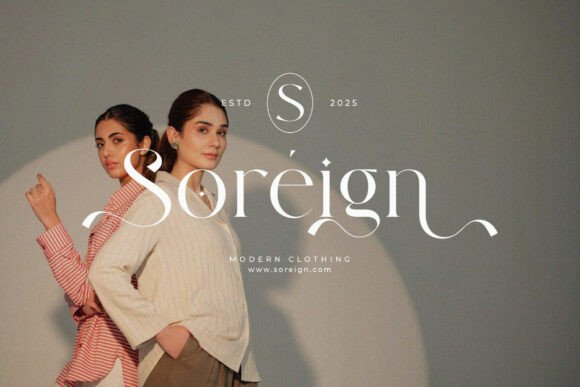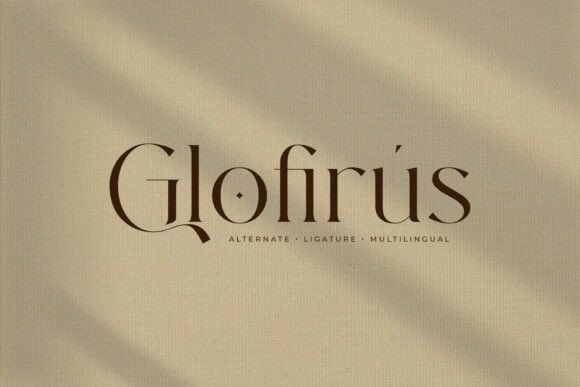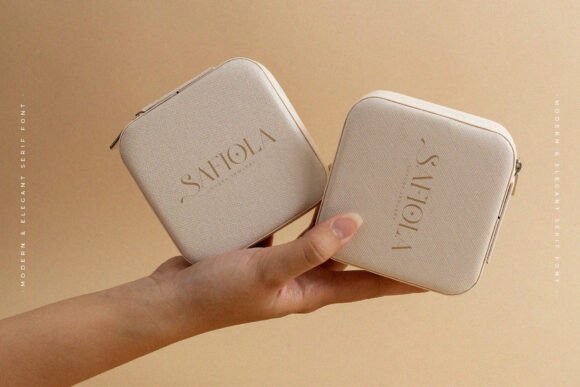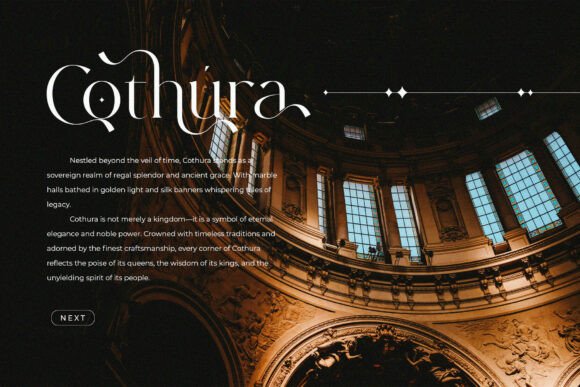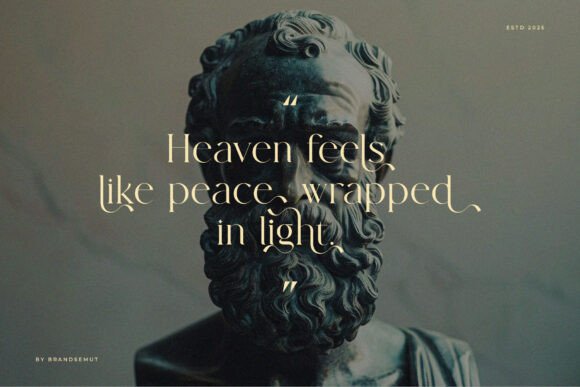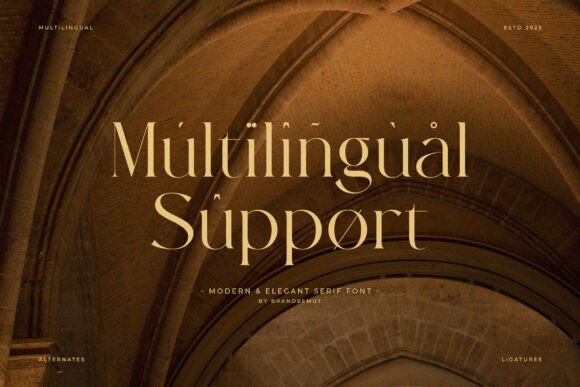
Introduction to Golden Century Font
As a designer, there’s nothing quite like the thrill of discovering a new font that elevates your creative project to the next level. For me, that moment came when I stumbled upon the Golden Century Font, a modern and luxurious serif font that seamlessly blends timeless elegance with contemporary aesthetics. Its sophisticated alternates and ligatures instantly caught my eye, and I knew I had to dive deeper.
As I delved into the world of Golden Century Font, I was struck by its versatility and high-quality design. From editorial headlines to branding for luxury products, this font brings a refined voice and bold presence to any creative project. Whether you’re a seasoned designer or just starting out, Golden Century Font is a valuable design resource that can take your work to new heights. And the best part? It’s now available for free download, making it a must-have for any designer looking to elevate their visual storytelling.
With its transparent background and clear typography, Golden Century Font is the perfect addition to any design project. Whether you’re working on a branding campaign or a packaging design, this font is sure to impress. So, what are you waiting for? Discover the beauty of Golden Century Font for yourself and see how it can transform your creative project into a masterpiece.
Key Features of Golden Century Font
- High-quality typography: The Golden Century Font is designed to provide a sophisticated and elegant look for any creative project.
- Transparent background: This feature allows for easy layering and customization, making it a versatile design resource.
- Large character set: Includes a wide range of characters, including Latin, Cyrillic, and Greek alphabets, making it suitable for international projects.
- High-resolution design: Designed at 300 DPI for crisp and clear rendering, ensuring that your designs look great on various devices and platforms.
- Perfect for creative projects: The Golden Century Font is ideal for use in graphic design, typography, and other creative projects where a high-quality font is essential.
Honest Review: Golden Century Font
I recently had the chance to work with the Golden Century Font, and I must say it’s been a game-changer for my creative projects. The high quality of this font is immediately noticeable, making it a valuable design resource for any designer.
What works well: ✨ The font’s transparent background makes it incredibly versatile and easy to work with. I love how it adds a touch of elegance to my designs without overpowering the other elements. The free download option is also a huge plus, making it accessible to designers of all levels.
Here are some of the features that I appreciate about the Golden Century Font:
- Perfect for designs that require a touch of elegance
Limitations: ⚠️ While the Golden Century Font is an excellent choice for many projects, it may not be the best option for designs that require a bold or playful feel. Additionally, some users may find the font’s transparent background to be a bit tricky to work with, especially for beginners.
Overall, I’m thoroughly impressed with the Golden Century Font. Its high quality, versatility, and accessibility make it a valuable addition to any designer’s toolkit. If you’re looking for a reliable and stylish font for your creative projects, I highly recommend giving it a try.
How to Use Golden Century Font
The Golden Century Font is a high-quality design resource that can elevate your creative project with its elegant and sophisticated style. This font features a transparent background, making it perfect for overlaying text on images or using as a standalone element.
Using the Font in Popular Design Tools
The Golden Century Font can be used in a variety of design tools, including:
Create stunning graphics and designs using the Golden Century Font in Canva’s intuitive interface.
Take advantage of the font’s high-quality design and use it in Adobe Photoshop and Illustrator for professional-grade results.
Add a touch of elegance to your presentations and documents using the Golden Century Font in PowerPoint and Word.
To get the most out of the Golden Century Font, experiment with different font sizes, colors, and combinations to create unique and eye-catching designs.
The Golden Century Font is perfect for: